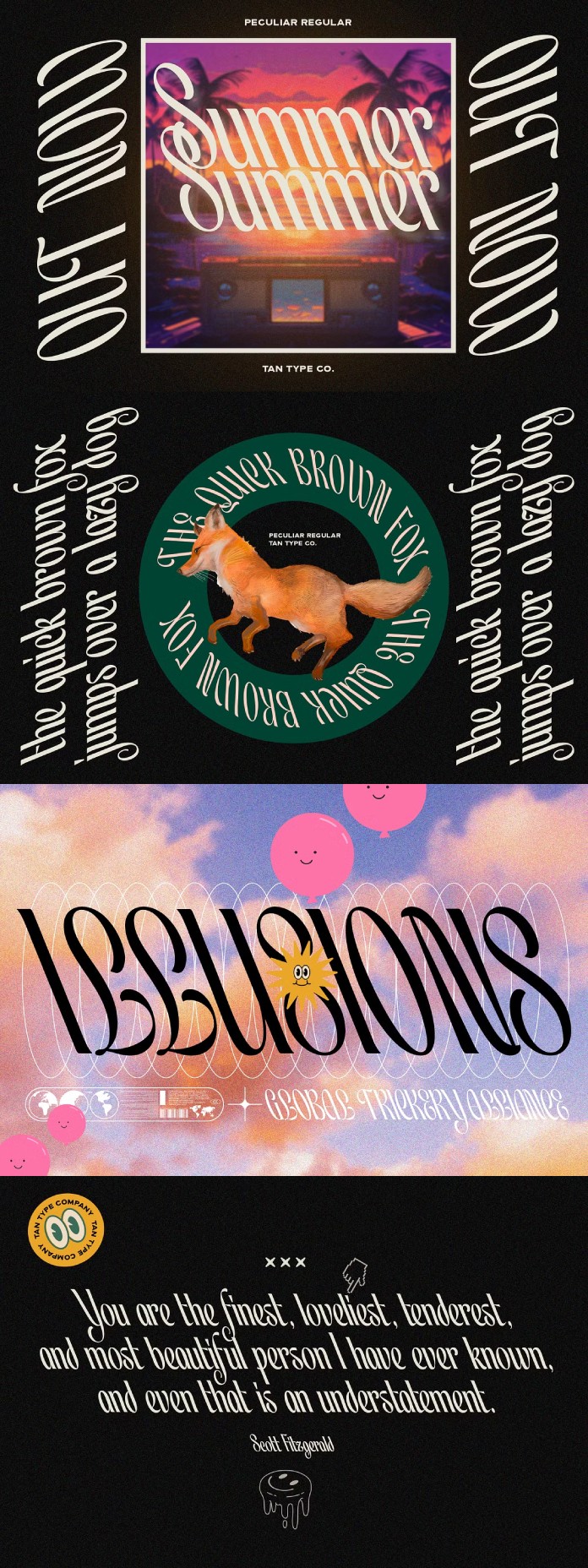
Let’s Explore the Unique Charm of the TAN Peculiar Font
TAN Peculiar, a captivating display typeface from the innovative minds at TanType, brings a contemporary twist to the realm of typography. This font, characterized by its fun and odd elements, injects a sense of wonder into any project it graces. Let’s delve into the details of TAN Peculiar and explore what makes it an extraordinary choice for designers looking to add a unique touch to their work.
A Modern Display Typeface with a Twist
TAN Peculiar stands out with its bold and playful aesthetic. The typeface is designed to catch the eye, making it perfect for headlines, posters, and branding materials that need to make a statement. Its quirky, yet sophisticated design, bridges the gap between modernity and classic elegance.
Visual Details and Characteristics
Summer Summer: A Vibrant Display
The “Summer Summer” example showcases the font’s versatility in capturing a vibrant and nostalgic summer vibe. The letters are gracefully curved, exuding a sense of movement and energy that is reminiscent of warm, sunlit days. The use of thick and thin strokes adds a dynamic rhythm to the text, enhancing its visual appeal.
The Quick Brown Fox: Playful and Engaging
In the “The Quick Brown Fox” example, the circular arrangement of the text around the fox illustration highlights TAN Peculiar’s playful nature. The letters flow seamlessly in a circle, demonstrating the font’s flexibility and its ability to adapt to various design layouts. The text maintains readability while adding a whimsical touch, perfect for creative projects that aim to engage and entertain.
Illusions: Whimsical and Dreamlike
The “Illusions” text is a prime example of how TAN Peculiar can create a dreamlike atmosphere. The font’s elegant curves and elongated serifs contribute to a surreal, almost magical quality. Paired with playful elements like smiling balloons and a radiant sun, this design showcases the font’s ability to evoke emotions and capture the imagination.
F. Scott Fitzgerald Quote: Elegant and Poetic
TAN Peculiar brings a sense of elegance to the F. Scott Fitzgerald quote. The typeface’s sophisticated letterforms are perfectly suited for conveying the poetic and heartfelt sentiment of the quote. The balanced contrast between thick and thin strokes, along with the subtle flourishes, adds a touch of refinement that enhances the overall reading experience.
Versatility and Application
One of the standout features of TAN Peculiar is its versatility. Whether you’re working on a modern brand identity, an eye-catching poster, or a whimsical book cover, this typeface can adapt to a variety of contexts while maintaining its unique charm. Its contemporary approach ensures that it feels fresh and relevant, while its fun and odd elements bring a distinctive personality to any project.
TAN Peculiar by TanType is more than just a typeface; it’s a creative tool that adds a sense of wonder and delight to your designs. Its contemporary design, combined with playful and odd elements, makes it a perfect choice for projects that aim to stand out and leave a lasting impression. Whether you’re looking to evoke nostalgia, engage your audience, or add a touch of elegance, TAN Peculiar is a versatile and enchanting font that can bring your vision to life. Embrace the peculiarity and let your creativity soar with TAN Peculiar.